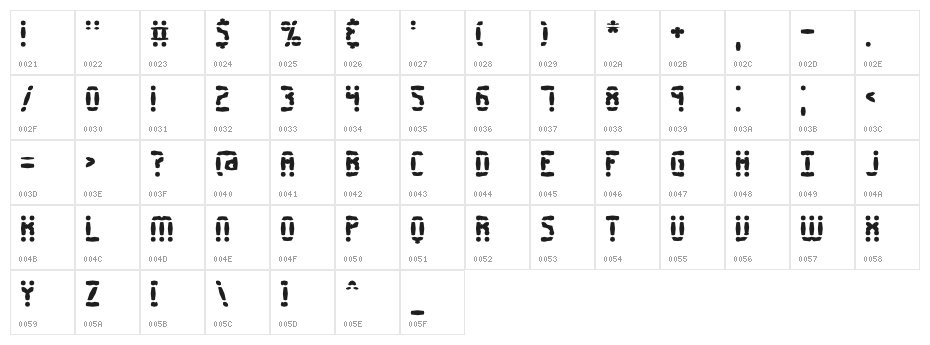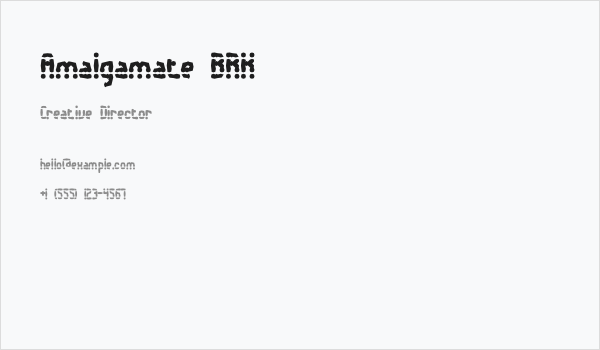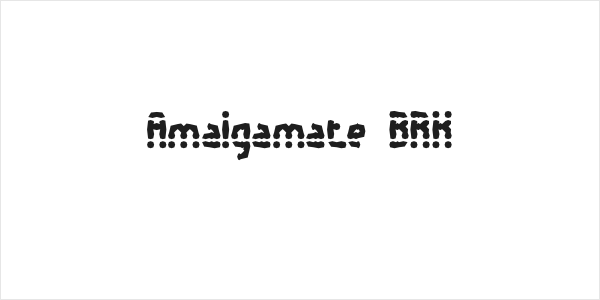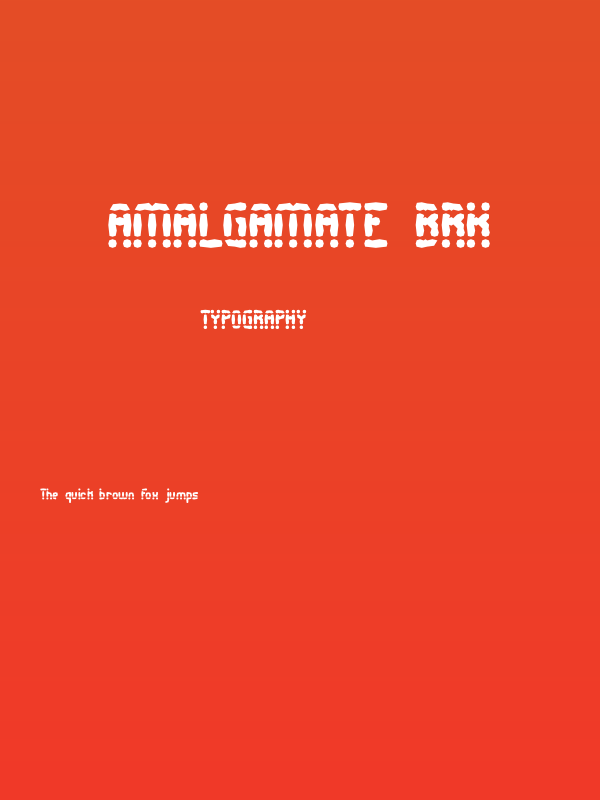
Amalgamate BRK Font
Amalgamate BRK Description
This font features a highly unique and decorative style, characterized by its bold, block-like appearance with a distinct stencil effect. Each character is formed with thick, uneven strokes, giving it a rugged and artistic feel. The uppercase and lowercase letters maintain a consistent design, while the numerals and special characters follow the same aesthetic, ensuring uniformity across the typeface. The font's playful yet edgy look makes it stand out, suitable for projects that require a strong visual impact.
Proposed ProjectsIdeal for poster designs, album covers, branding projects, and any creative work that demands a bold statement.